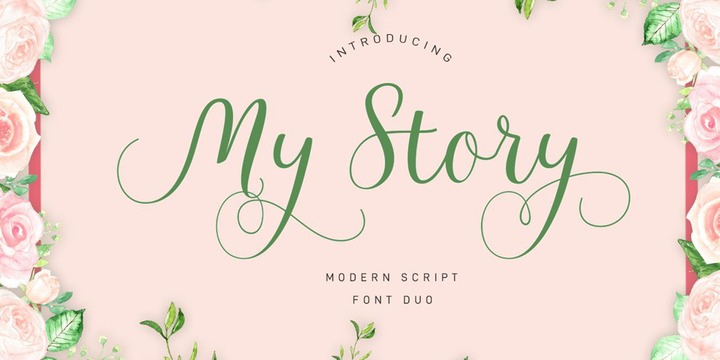
My Story Script Font
My Story Script Font is perfect for wedding invitations, greeting cards, romantic branding, handwritten logos, social media posts, book covers, photography watermarks, feminine brand identities, personal blogs, love letters, boutique signage, and elegant stationery design. This beautiful script font brings a personal touch to any creative project.
My Story Script Font is exciting because it captures the authentic beauty of natural handwriting with flowing, organic curves that convey warmth, personality, and genuine human connection. Its carefully crafted ligatures and natural letter variations create the illusion of real handwritten text with professional polish.
The My Story Script Font family includes Regular weight with alternate characters, stylistic sets, beginning and ending swashes, plus an extensive collection of decorative flourishes and ornamental elements that enhance the handwritten aesthetic and provide endless creative possibilities.
Creative professionals love My Story Script Font for its exceptional versatility in expressing emotion and personality through typography. The font's natural flow and organic character spacing create genuine warmth that resonates with audiences on an emotional level. Its carefully designed letter connections and contextual alternates ensure that repeated letters look naturally different, maintaining the authentic handwritten appearance throughout extended text passages.
The advanced OpenType features of My Story Script Font include contextual alternates, stylistic sets, and ligatures that automatically adjust letter combinations for the most natural appearance. Designers working on personal branding, lifestyle products, or emotional storytelling campaigns find this font particularly effective for creating memorable, heartfelt communications.
Whether used for wedding materials, personal branding, or artisanal product packaging, My Story Script Font delivers the perfect balance of elegance and authenticity. Its timeless appeal and emotional resonance make it an essential tool for designers who want to create meaningful connections between brands and their audiences through beautiful, expressive typography.